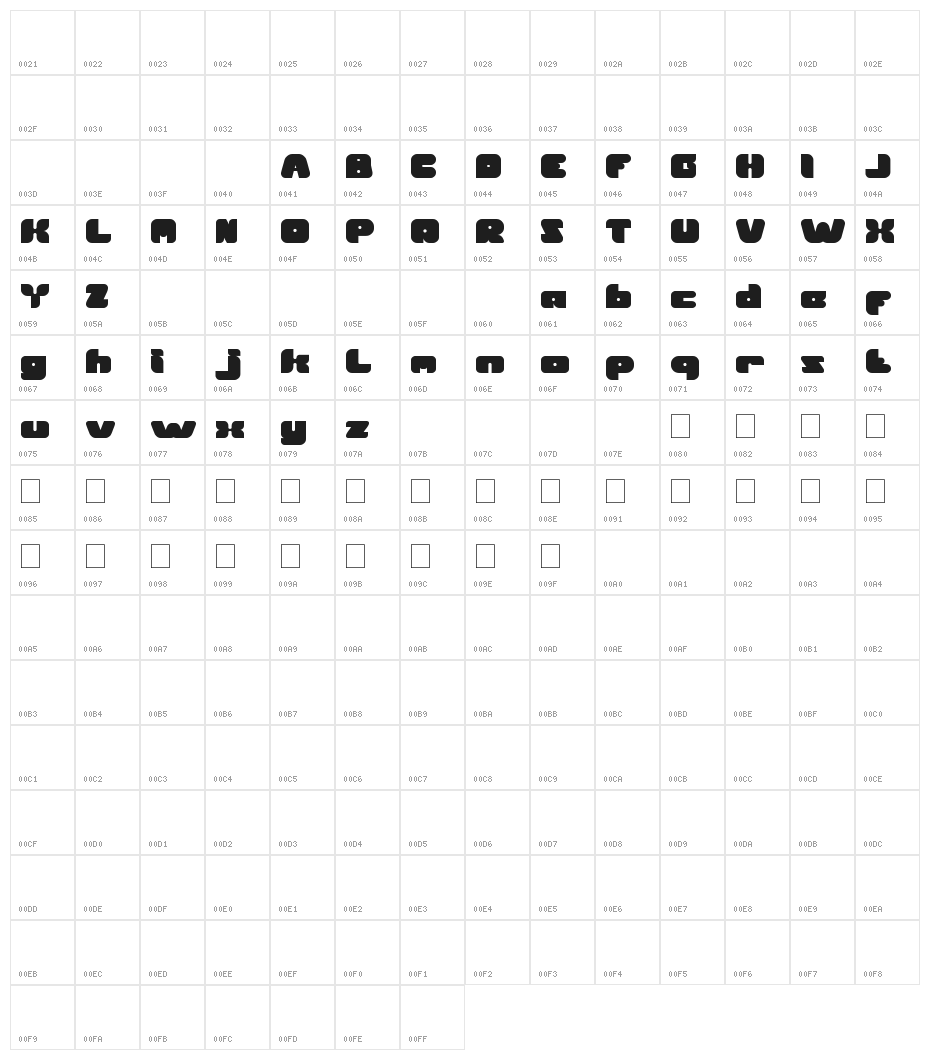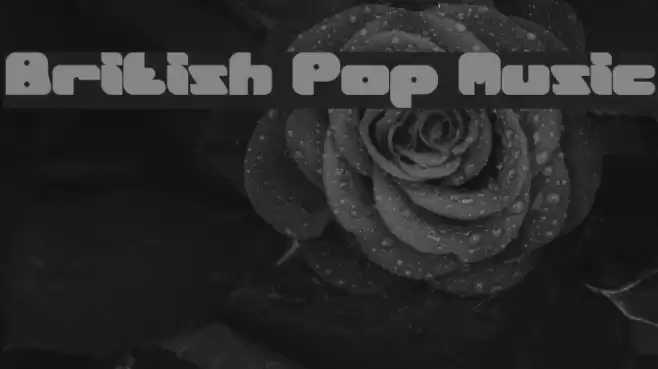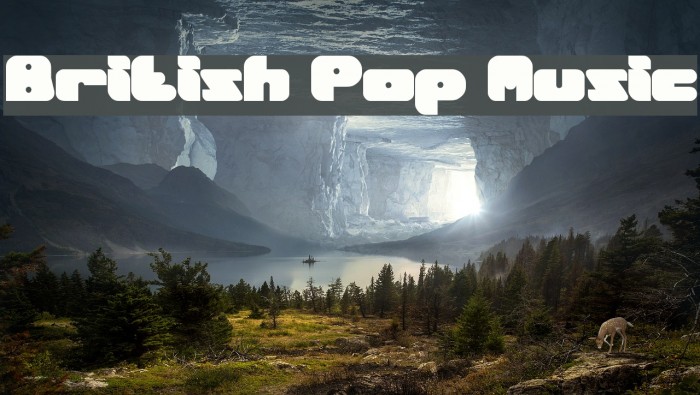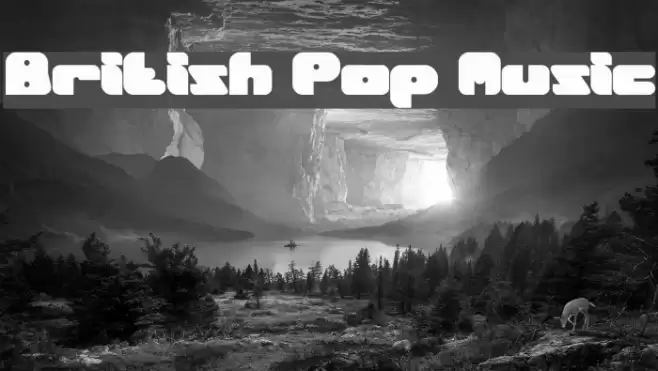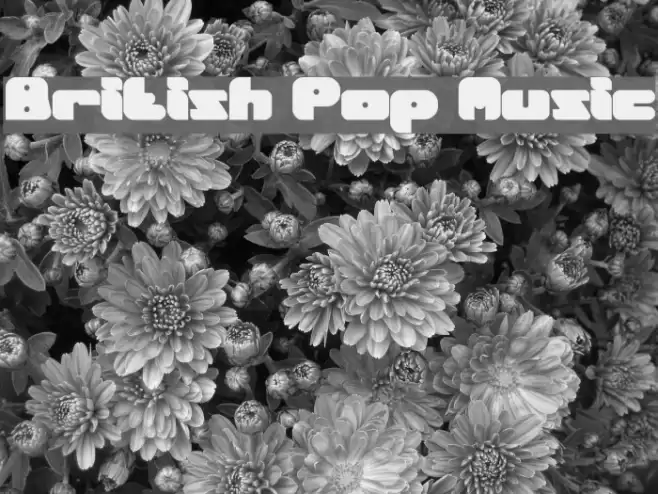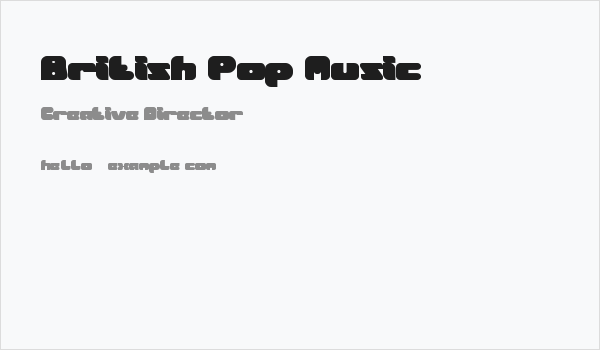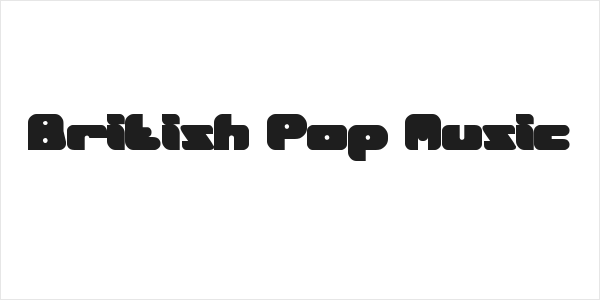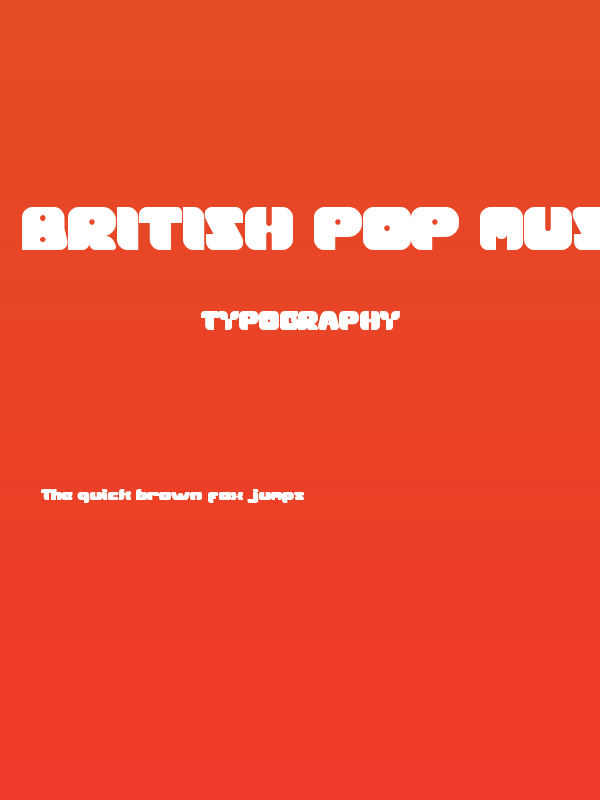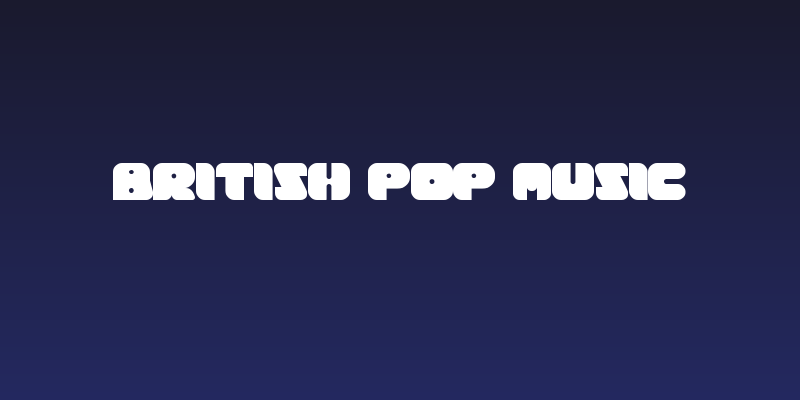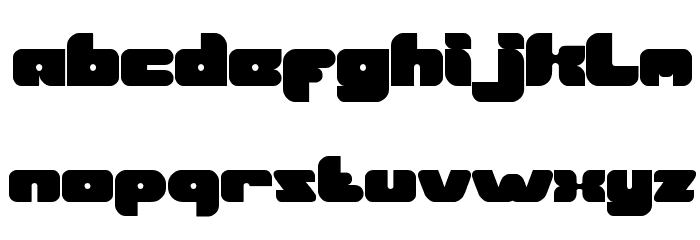
British Pop Music Font
British Pop Music Description
This font features a bold and playful design with rounded edges and a chunky appearance. The characters are uniformly thick, creating a strong visual impact. The style is reminiscent of retro or pop art aesthetics, with a modern twist. The uppercase and lowercase letters maintain a consistent weight, and the overall look is cohesive and eye-catching. The font's design is suitable for projects that require a fun and engaging typeface, such as posters, album covers, or branding for creative industries.
| Overall Style | Modern, Retro |
| Proposed Projects | Ideal for posters, album covers, branding for creative industries, and any project needing a fun, engaging typeface. |